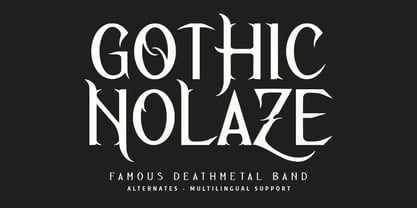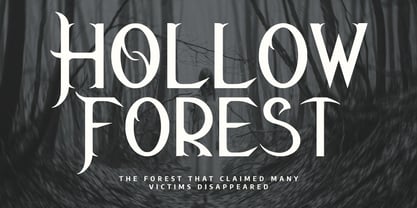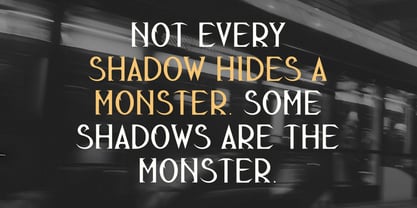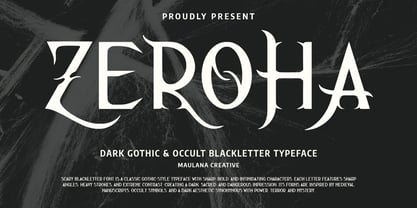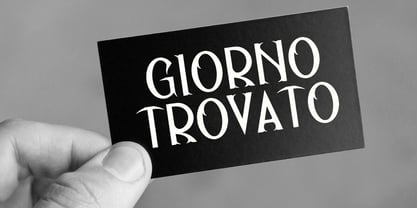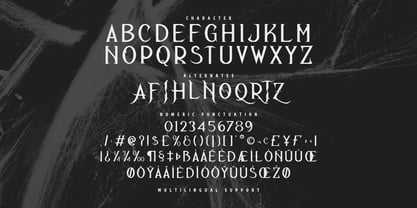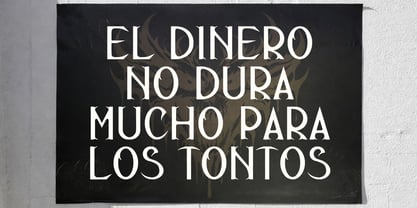
MC Zeroha
by Maulana Creative
The MC Zeroha Font Family was designed by Gilang Maulana and published by Maulana Creative. MC Zeroha contains 1 styles. More about this family
Zeroha is a menacing blackletter font that blends medieval manuscript tradition with modern dark aesthetics. Featuring sharp, horn-like terminals, aggressive angles, and heavy strokes, this typeface is designed to evoke a sense of power, mystery, and ancient terror. It is the perfect choice for metal band logos, horror movie titles, occult themed branding, and any project that requires a dangerous visual presence.
Designers: Gilang Maulana
Current Foundry: Maulana Creative